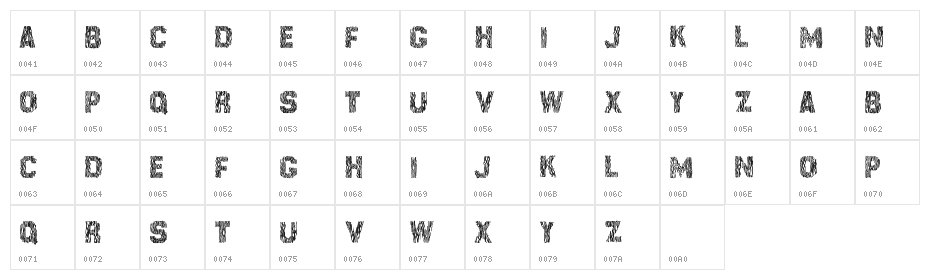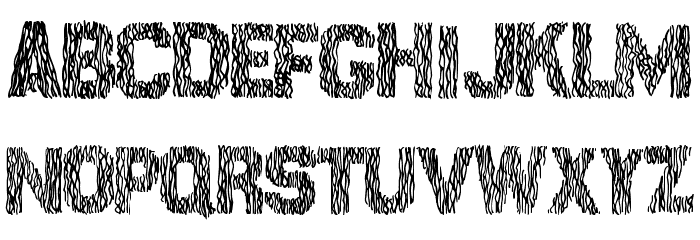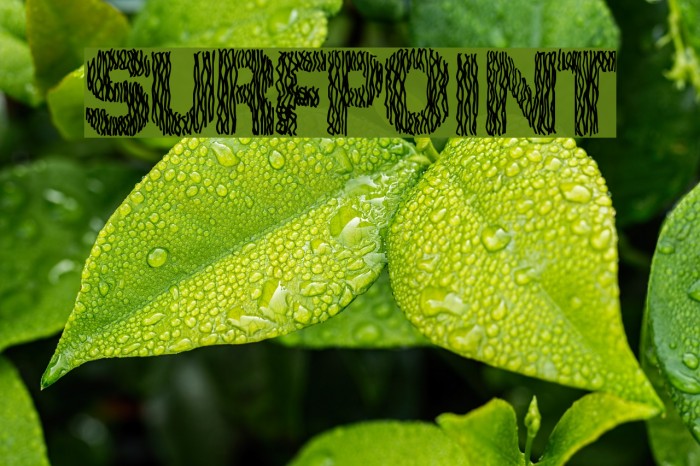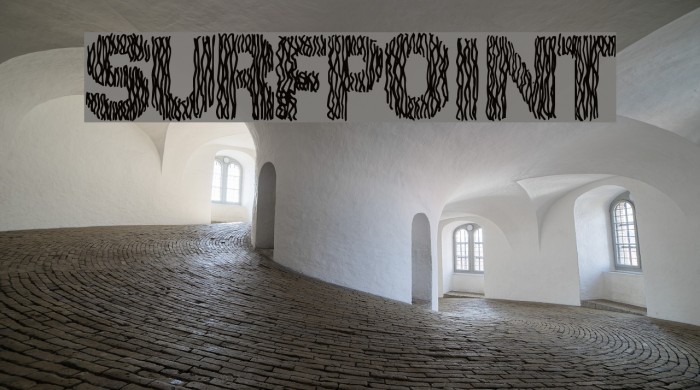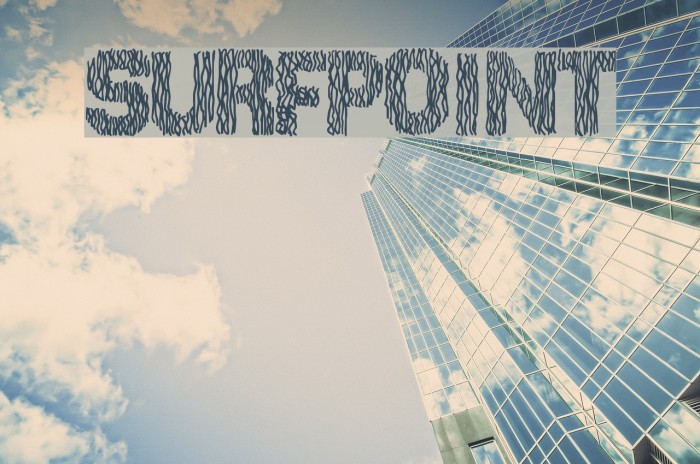
SurfPoint Font
SurfPoint Description
This font features a unique, textured design that mimics the appearance of waves or intricate lines, creating a dynamic and visually engaging effect. The characters are bold and uppercase, with a consistent pattern throughout each letter, giving it a cohesive look. The style is reminiscent of natural elements, making it ideal for projects that require a touch of creativity and flair. Its decorative nature makes it stand out, perfect for eye-catching designs.
| Proposed Projects | This font is perfect for surf-themed posters, beach event flyers, creative branding, and any project that requires a bold, artistic touch. |